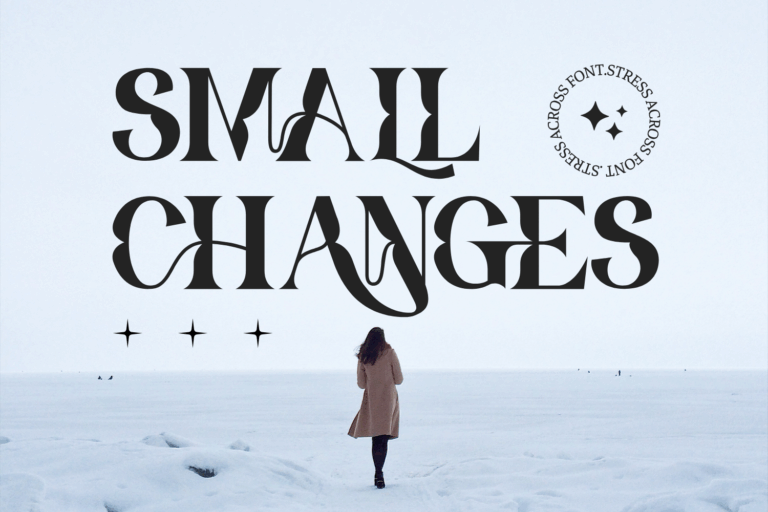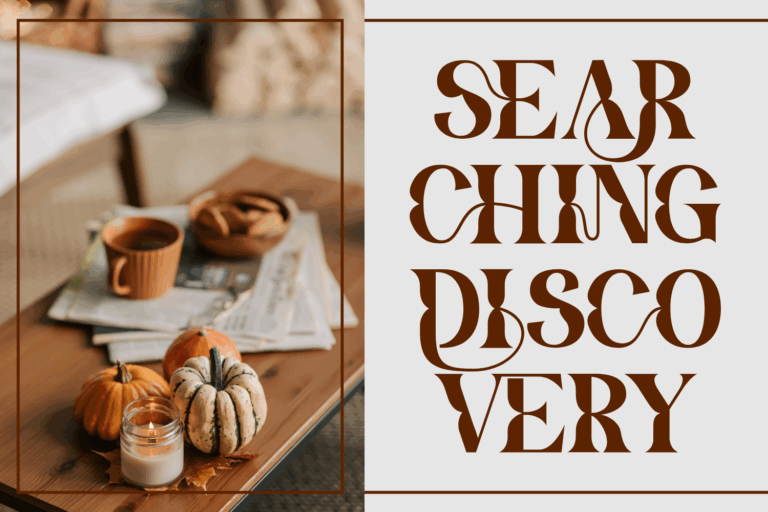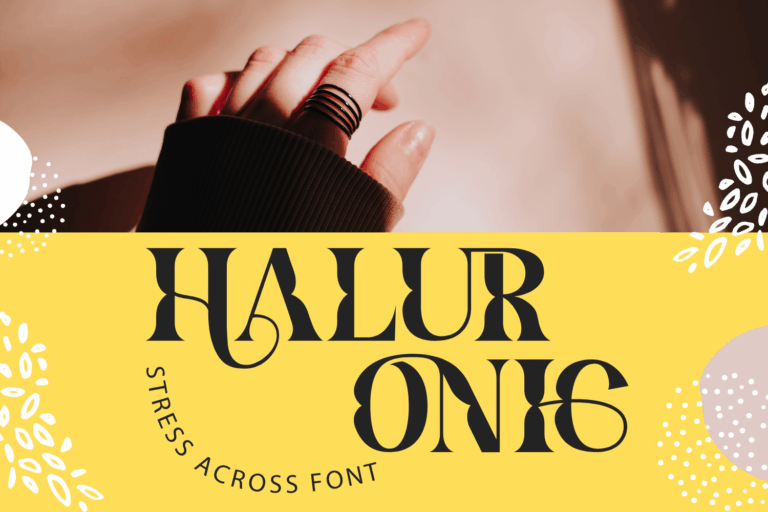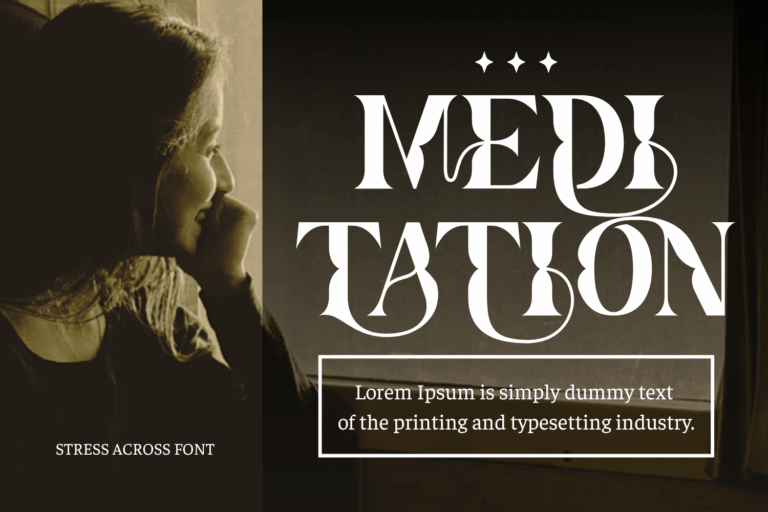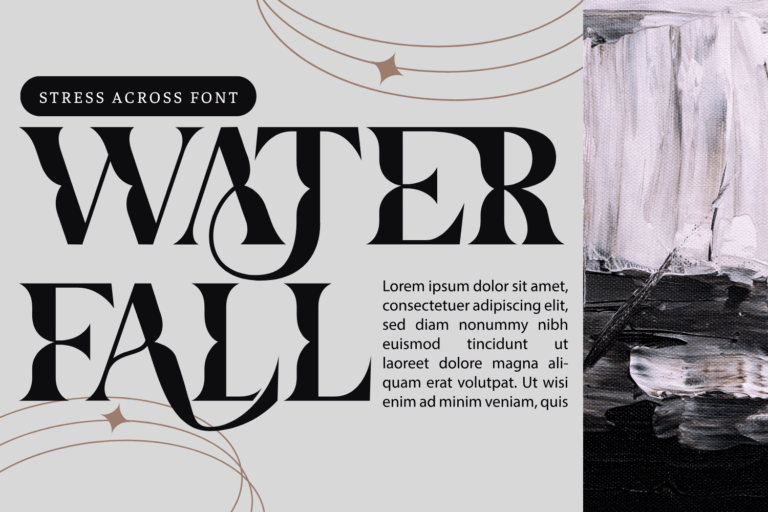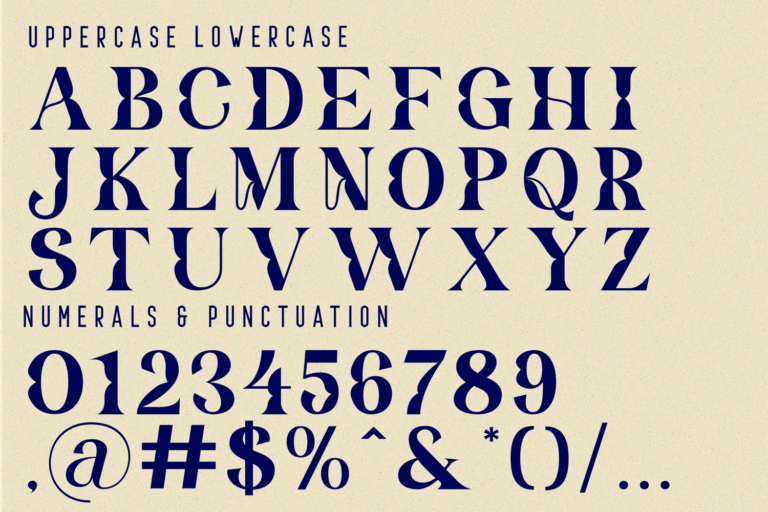
Stress Across – Ligature Serif Font | Modern Ligature Serif Font, an elegant high-contrast serif typeface designed with expressive curves and refined ligatures. Blending modern luxury with classic editorial charm, this font brings sophistication to every design it touches. With its sweeping alternate glyphs and signature ligatures, Stress Across is perfect for fashion branding, editorial headlines, wedding invitations, and high-end packaging.
π€ Font Features:
- Uppercase Letters
- 100+ Curated Special Ligatures & Alternates
- Numerals & Full Punctuation
- Accented Characters for Multilingual Support
- Smooth, graceful connections between letters with extended swashes
π€ About 100 ligatures combined with Stylistic Alternates Font:
AC AD AL AN AR AS AT AU AV BE CA CE CH CO CT DE DI EA EC ED EE EL EM EN EP ER ES ET FE FO FR GE HA HE HI HO IE IC IL IN IO IR IS IT JU KE LA LE LI LL LO LY MA ME MI NC ND NE NG NO NT NS OC OF OM ON OO OP OR OT OU OW PA PR RA RD RE RI RO RS RT SE SH SI SO SS ST TA TE TH TI TO TR TT UM UN UR VE WI WO